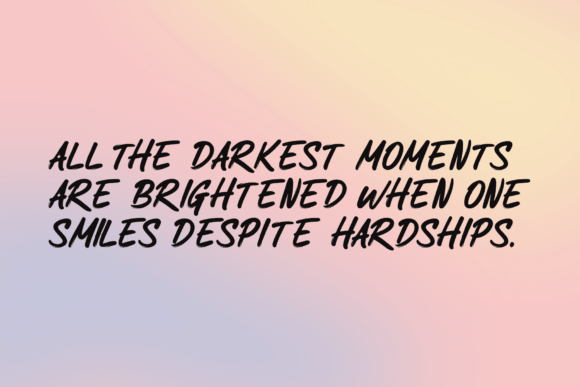
Unlocking the Power of Smile Bright Font
As designers, we’ve all been there – staring at a blank canvas, searching for the perfect font to elevate our creative project. The moment of truth arrives when we discover a font that captures the essence of our vision, and Smile Bright Font is one of those game-changers. This bold brush display font is a masterpiece that brings hand-painted energy to titles and logos, making it a must-have for designers seeking to add a personal touch to their work.
With its thick, textured strokes and natural pressure contrast, Smile Bright Font is the perfect addition to any design resource. Whether you’re working on a high-quality poster, social media campaign, or YouTube intro, this font is sure to make your creative project stand out. And the best part? It’s available for free download, making it an accessible and valuable resource for designers of all levels.
Key Features of Smile Bright Font
- Smile Bright Font features a unique, modern design with clean lines and a friendly feel, making it perfect for various applications.
- Includes a comprehensive character set, including uppercase and lowercase letters, numbers, and punctuation marks.
- Perfect for use in logos, branding materials, website headers, and other design elements where a friendly, approachable feel is desired.
Honest Review: Smile Bright Font
As a designer, I’m always on the lookout for high-quality fonts that can elevate my creative projects. Recently, I stumbled upon the Smile Bright Font, and I’m excited to share my honest review with you.
Here’s what works well:
- ✨ The font is highly customizable, making it suitable for a wide range of creative projects.
However, I do have a few concerns:
Overall, I think the Smile Bright Font is a great resource for designers working on personal or small-scale projects. While it may have some limitations, its high quality and free availability make it a valuable addition to any design library.
Smile Bright Font Overview
Smile Bright Font is a high-quality design resource perfect for creative projects. This font is available for free download and comes with a transparent background, making it easy to customize and integrate into your designs.
Tips for Getting the Most Out of Smile Bright Font
To get the most out of Smile Bright Font, use it in conjunction with other design elements to create a visually appealing and cohesive design. Experiment with different font sizes, colors, and arrangements to find the perfect look for your project.
Common Use Cases for Smile Bright Font
Smile Bright Font is perfect for use in a variety of creative projects, including logos, business cards, and social media graphics. Its high-quality design and transparent background make it easy to customize and integrate into your designs.
Alternatives to Smile Bright Font
Great Vibes Font is a high-quality, handwritten font perfect for creative projects that require a personal touch. It features a transparent background, making it ideal for designing over images or using as a design resource. Great Vibes Font is free to download and can be used in a variety of contexts, from greeting cards to social media graphics.
When to use: For projects that need a casual, handwritten feel. It’s particularly effective for designs that require a sense of playfulness or whimsy.
Comparison to Smile Bright Font: While both fonts are playful, Great Vibes Font has a more relaxed, casual feel compared to the bubbly, energetic vibe of Smile Bright Font.